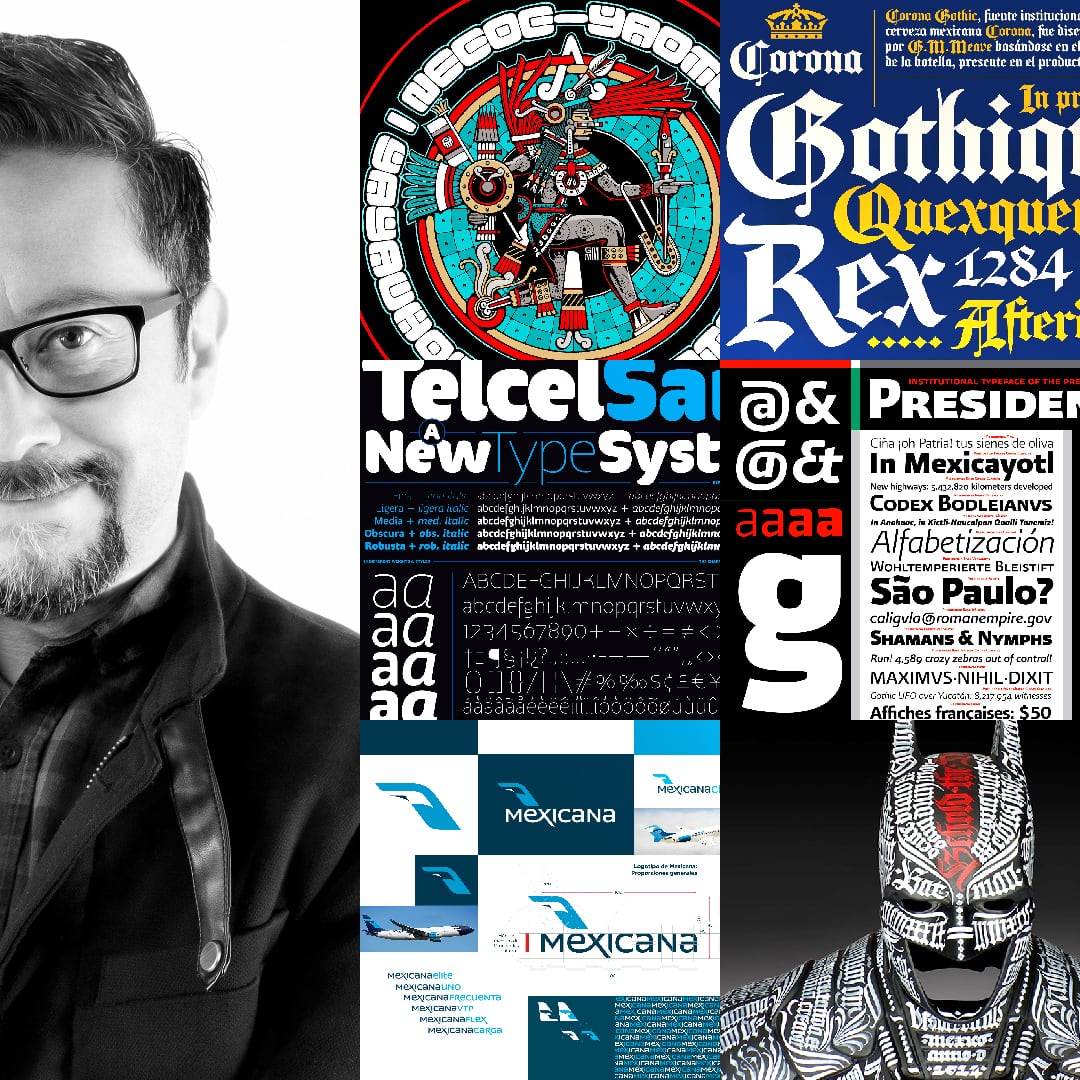
Design at the crossroads of the Old and the New with Gabriel Martínez Meave
In this talk, G.M.Meave tells us about his work and influences, from his life-long fascination with ancient Mexican codices to his fondness of Gothic letterforms, and the challenges of being a designer at the crossroads of the old and the new, the functional and the ornamented, the indigenous and the foreign. How extremely divergent cultures such as the Maya and the Spanish strive to make a common, hybrid, contemporary visual language, and the ups and
downs of being a type designer in Latin America.
Gabriel Martinez Meave is a Mexican designer, calligrapher, type designer and illustrator, working in Mexico City. He has executed artistic, commercial and corporate projects for clients such as Google, José Cuervo, Corona and Kellogg’s. He has made illustrations and cover art for books by Cornelia Funke, Juan Villoro, Gabriel García Márquez, among other authors. He has won numerous awards from the TDC, the ATypI and a!Diseño. He is professor and lecturer at various universities in Mexico and abroad. His typefaces are distributed by Adobe and Sudtipos.